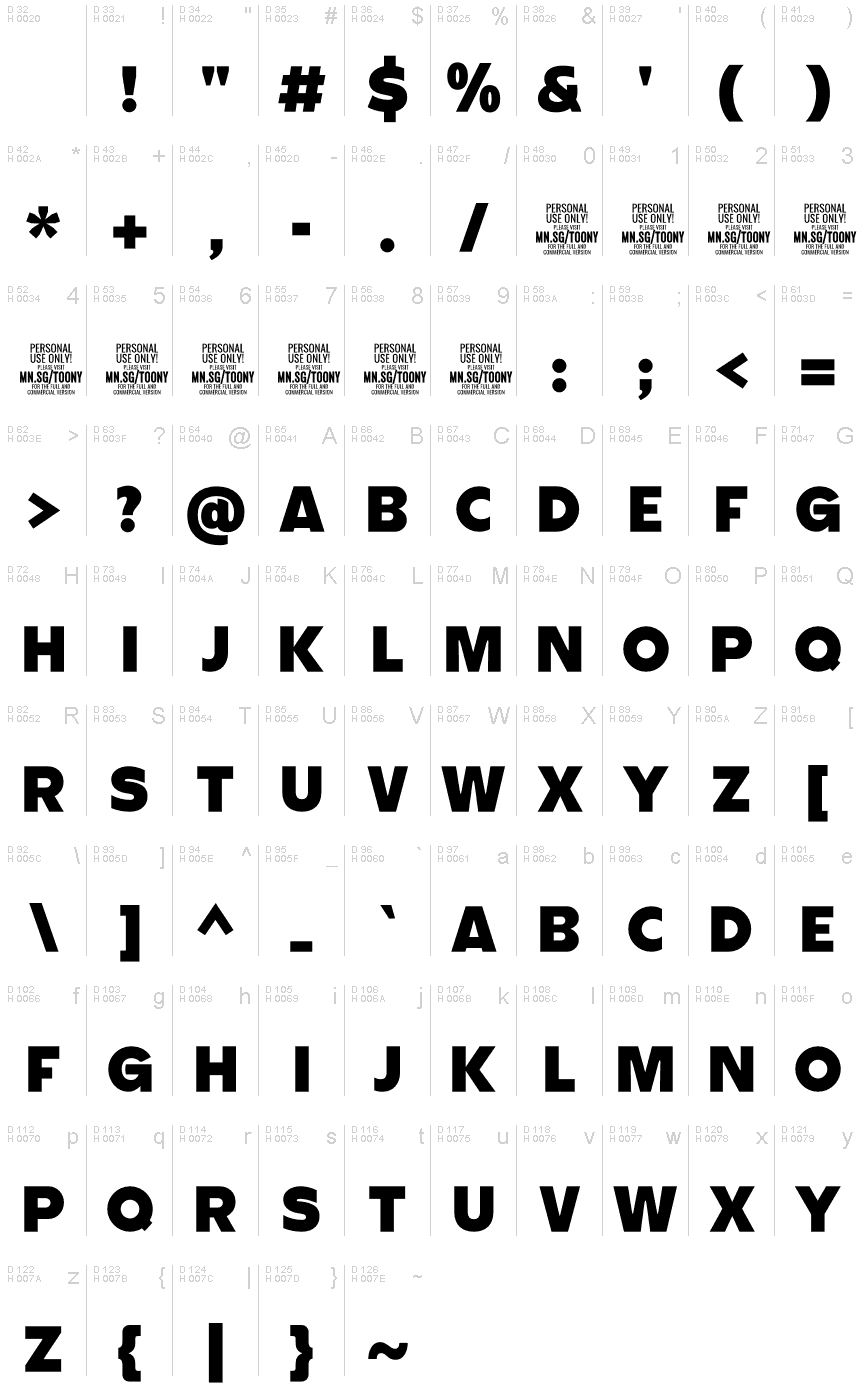
Toony Sans PERSONAL USE Regular
Toony Sans, designed by Mans Greback, is a modern interpretation of classic typography. This extra-bold sans-serif font style pays homage to beloved animations, evoking a sense of professionalism with a hint of nostalgia. Its clean and streamlined look makes it the perfect choice for projects that demand clarity and elegance.
With its sharp edges and precise design, Toony Sans exudes a contemporary feel while maintaining an undeniable warmth in every character. This font is equipped with advanced OpenType functionality, offering you complete control and customization with stylistic and contextual alternates, ligatures, and more.
Toony Sans boasts extensive lingual support for all Latin-based languages from around the world. From Northern Europe to South Africa, from America to South-East Asia – this font has got you covered. It contains all the characters, symbols, punctuation marks, and numbers you'll ever need.
Whether you're designing a professional website or creating eye-catching marketing materials, Toony Sans is the ideal font choice to add a touch of charm and sophistication to your project.